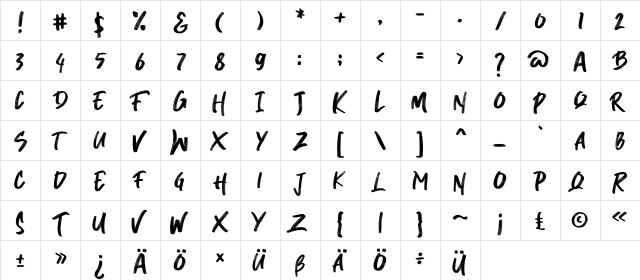
Breaker The Brush Regular
Design Context for Breaker The Brush Typeface
Breaker The Brush flows with the natural rhythm of handwritten lettering, making it ideal for designs that call for warmth and personal expression.
Font Pairing: Combine Breaker The Brush with a simple geometric sans for maximum contrast — the tension between flowing curves and clean structure is a classic typographic pairing.
Pro Tip: Pair Breaker The Brush with a clean sans-serif for supporting text. The contrast between fluid script and geometric structure creates an elegant typographic hierarchy.